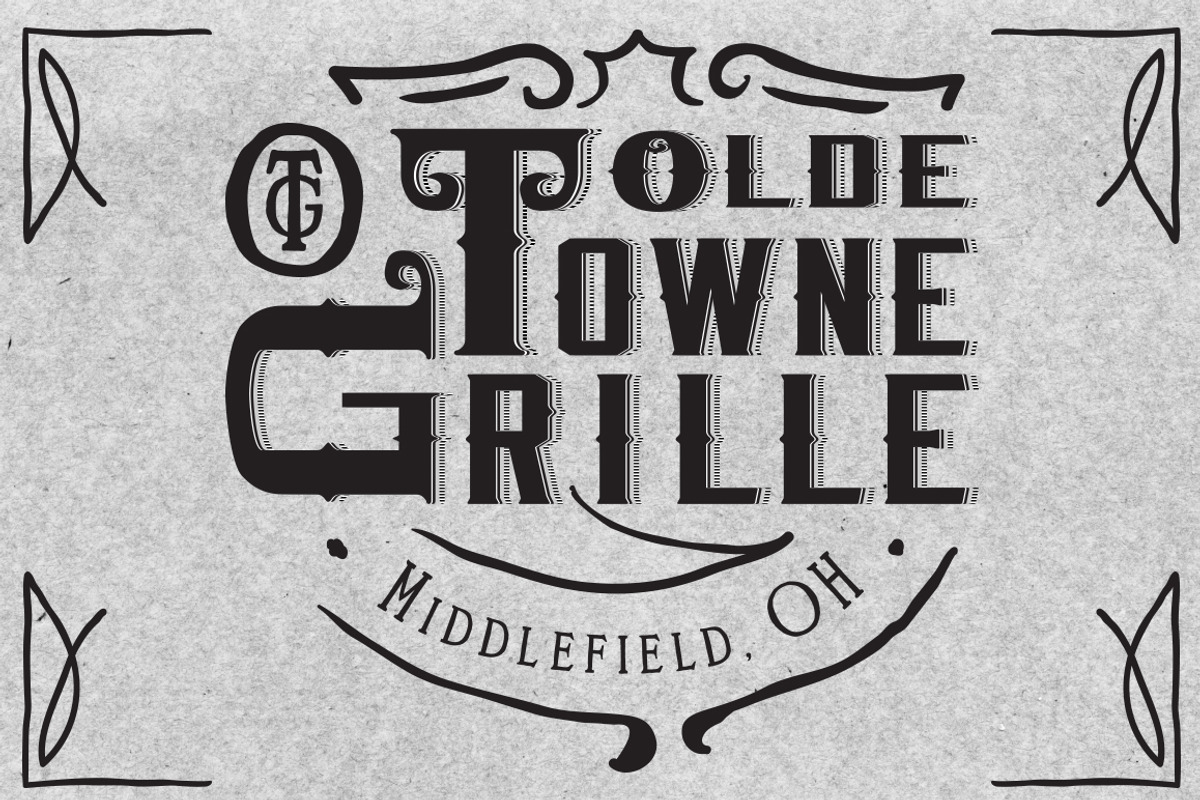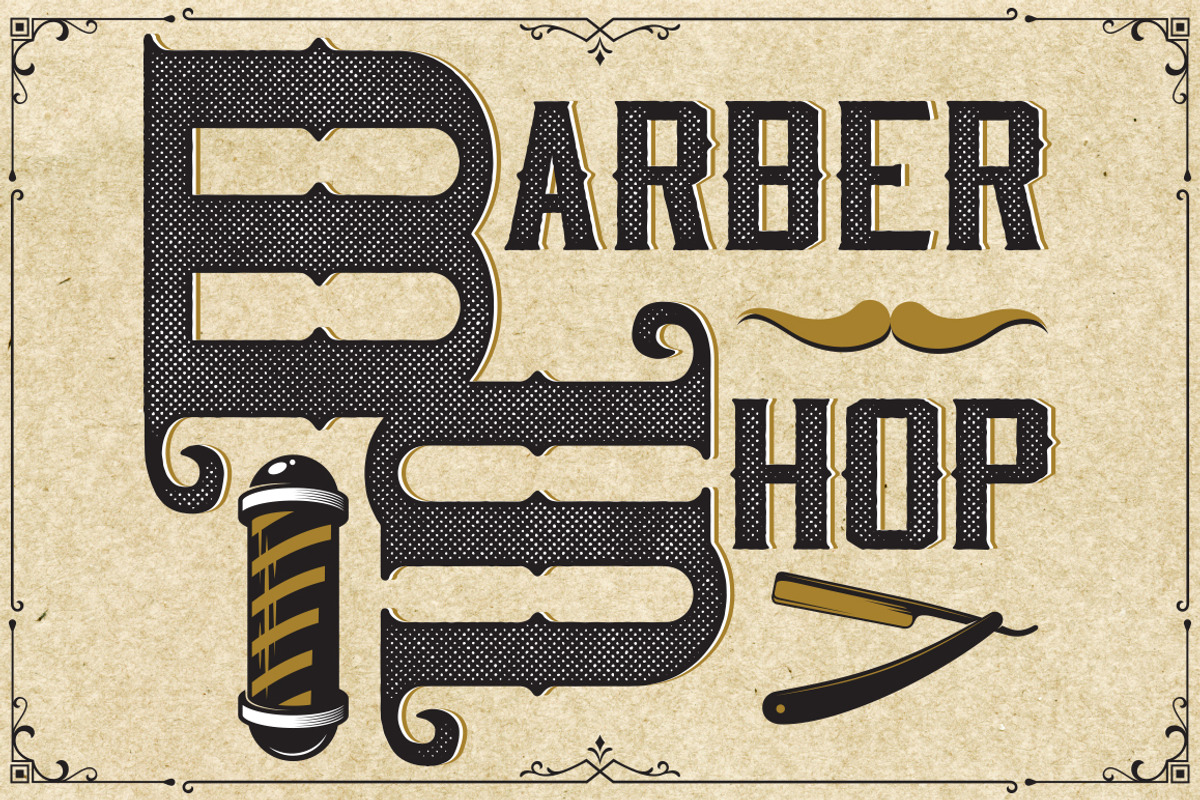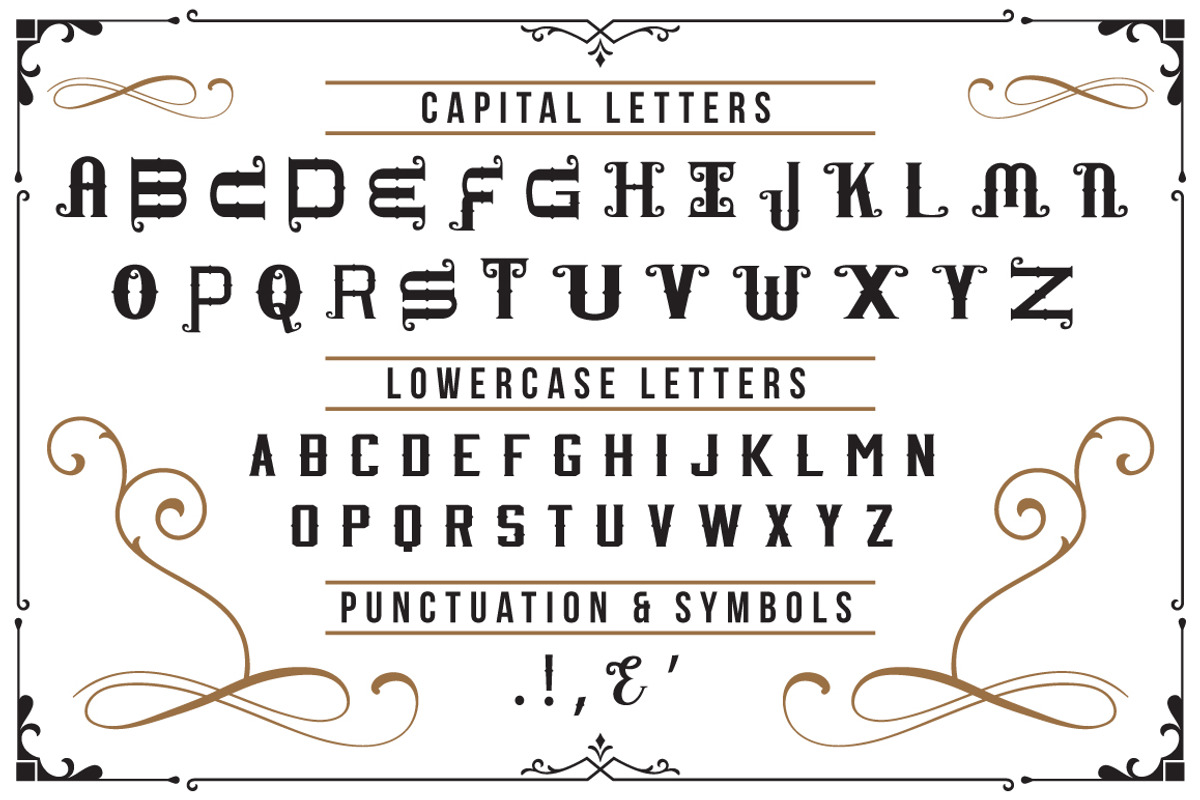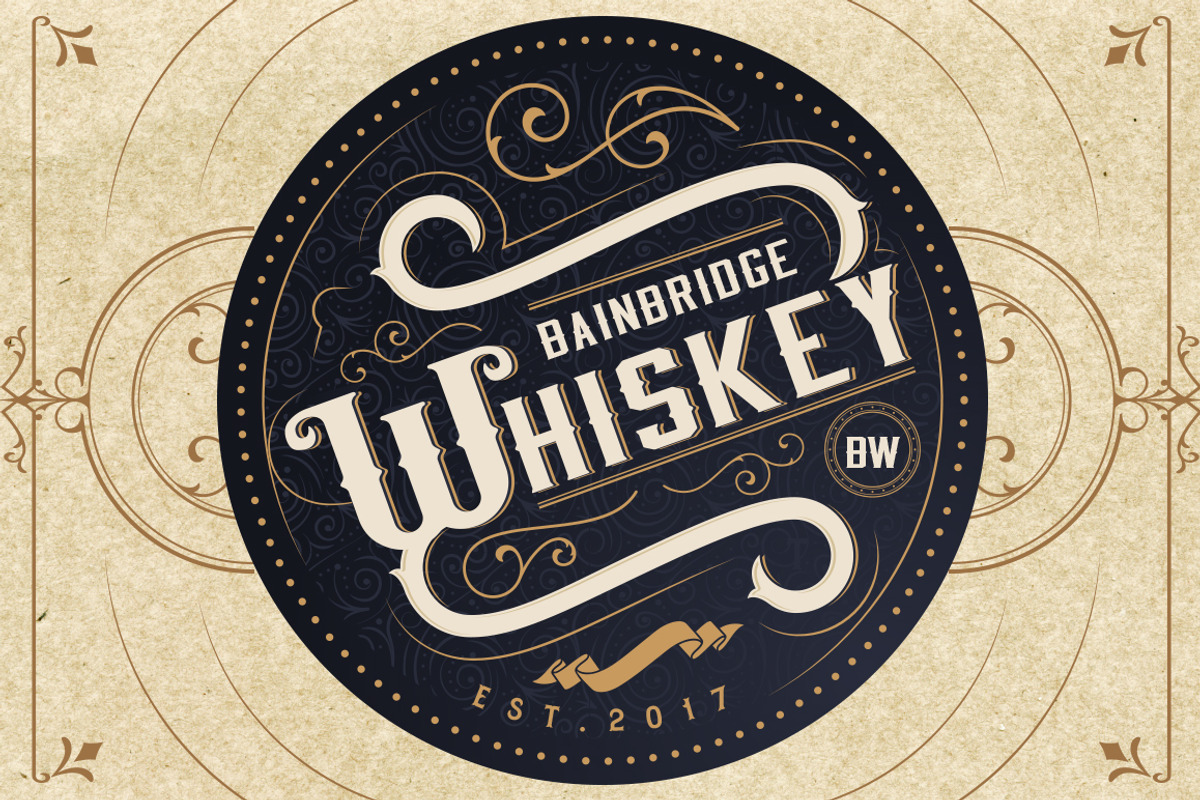
Bainbridge Typeface
Bainbridge Typeface by momlor13 is a font selected for branding, posters, packaging, typography.
- The Typeface consist of Hand Design Unique Bold Capital and Lowercase letters, that really work well together.
- The Lowercase letters have a more simple form, but still have a vintage feel to them.
Bainbridge Typeface by momlor13 fits naturally into Branding, posters, packaging, typography.